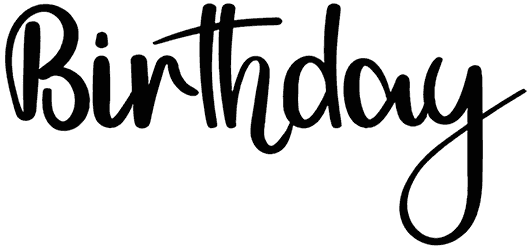
Birthday Font
Meet with success now, a script font with a soft outward that makes your day shine. Birthday, as a versatile gamer, aims to improve your attention through its sweet, friendly vibe. Believe it or not, this one-of-a-kind happy birthday font, being a Resource Boy asset with a complete alphabet set, charges you nothing for use.